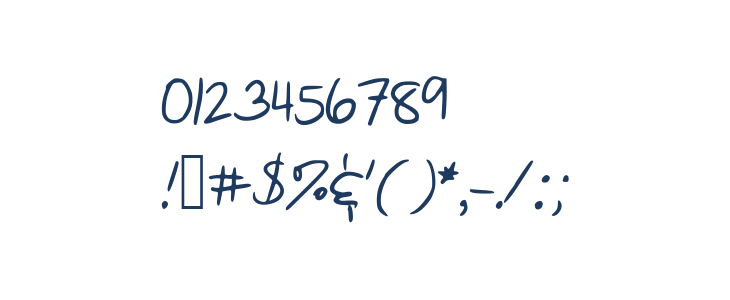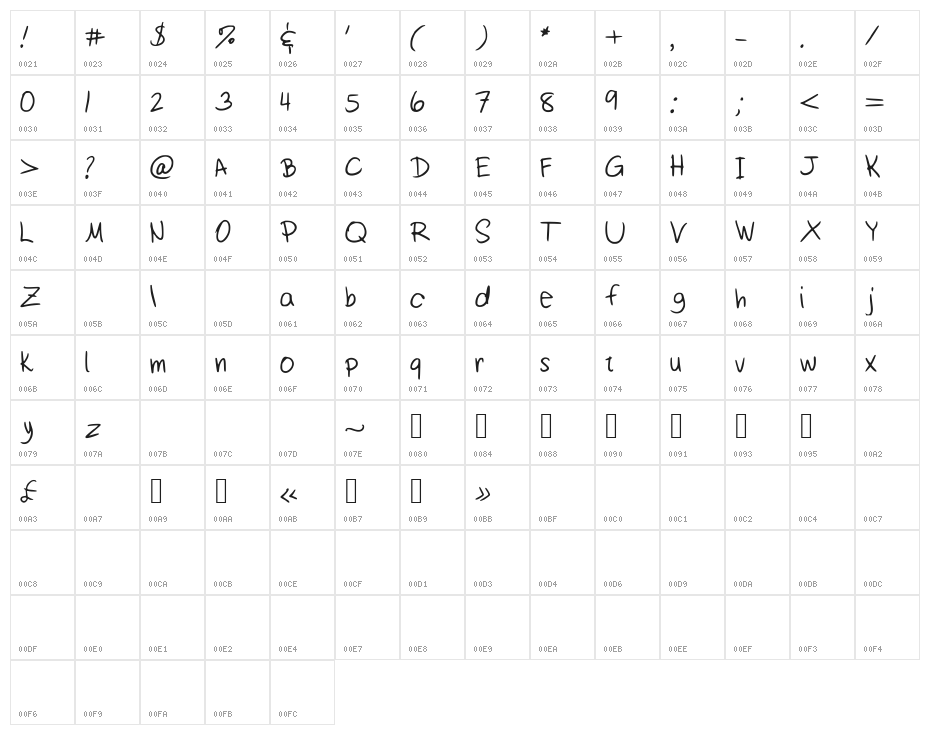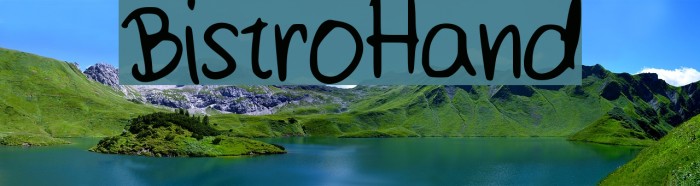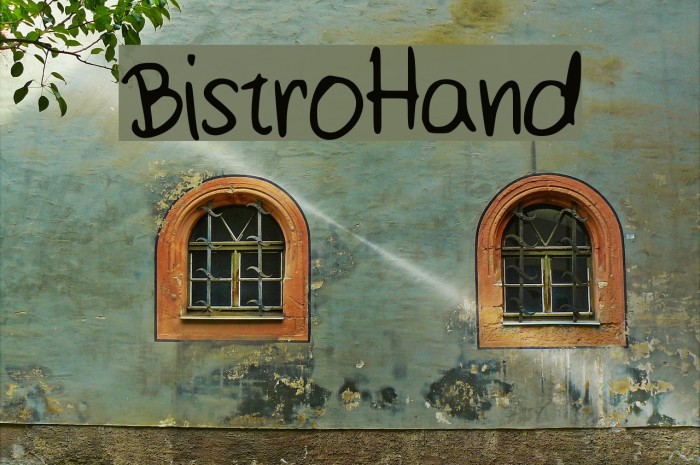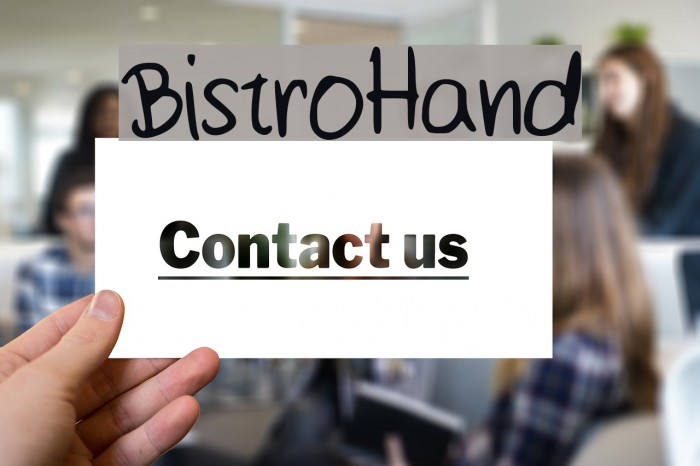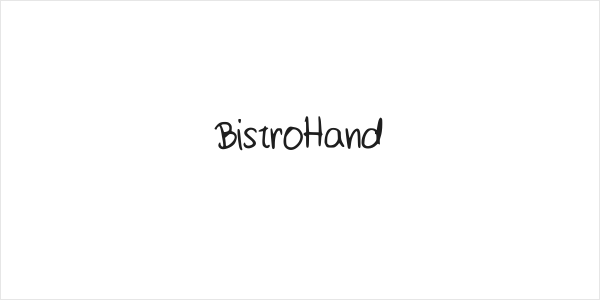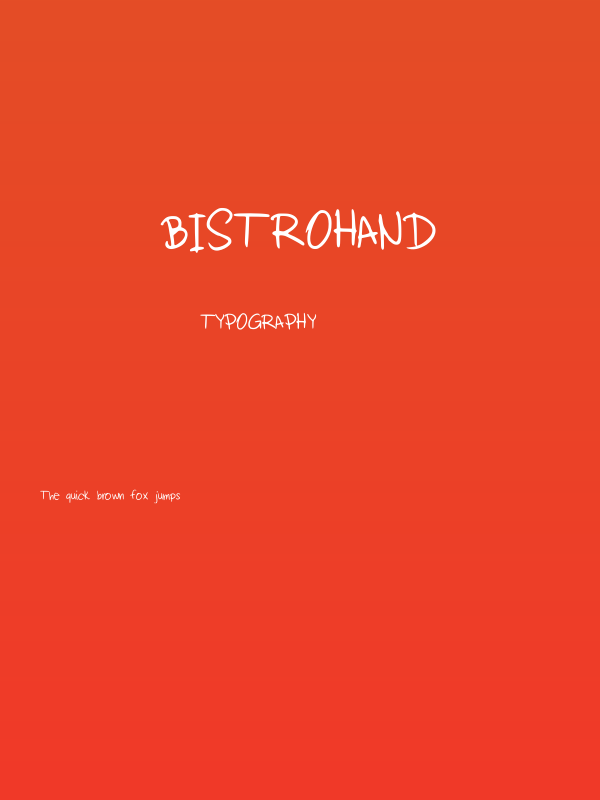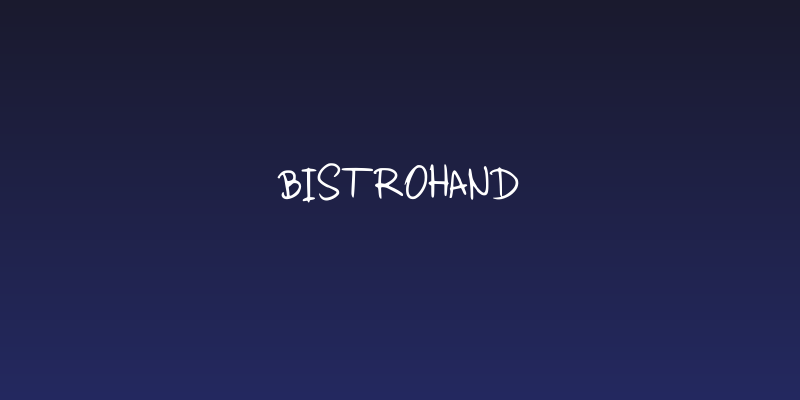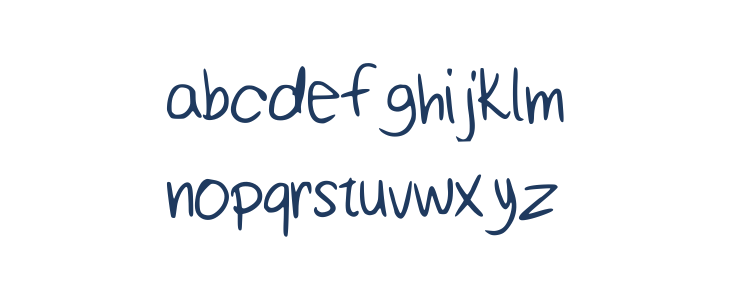
BistroHand Font
BistroHand Description
This font exudes a playful and casual handwritten style, characterized by its smooth, flowing strokes and slightly irregular letterforms. The uppercase letters are bold and confident, while the lowercase letters maintain a consistent, friendly appearance. The numbers are clear and easy to read, complementing the overall informal aesthetic. Special characters are creatively designed, adding to the font's charm. The font's organic feel makes it ideal for projects that require a personal touch, such as invitations, greeting cards, or branding for creative businesses.